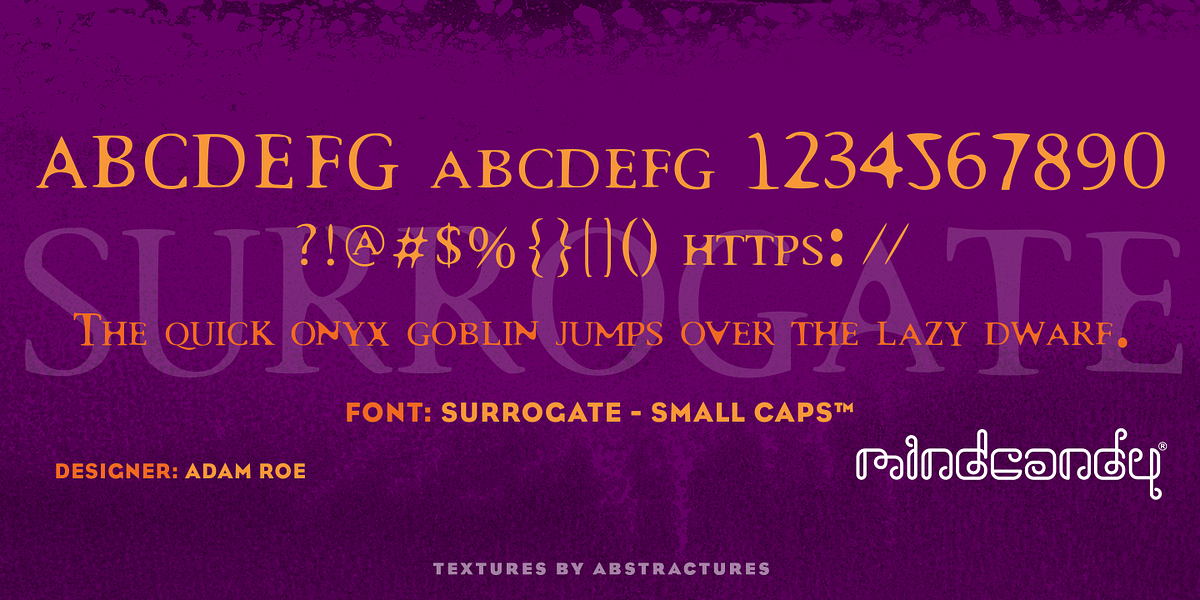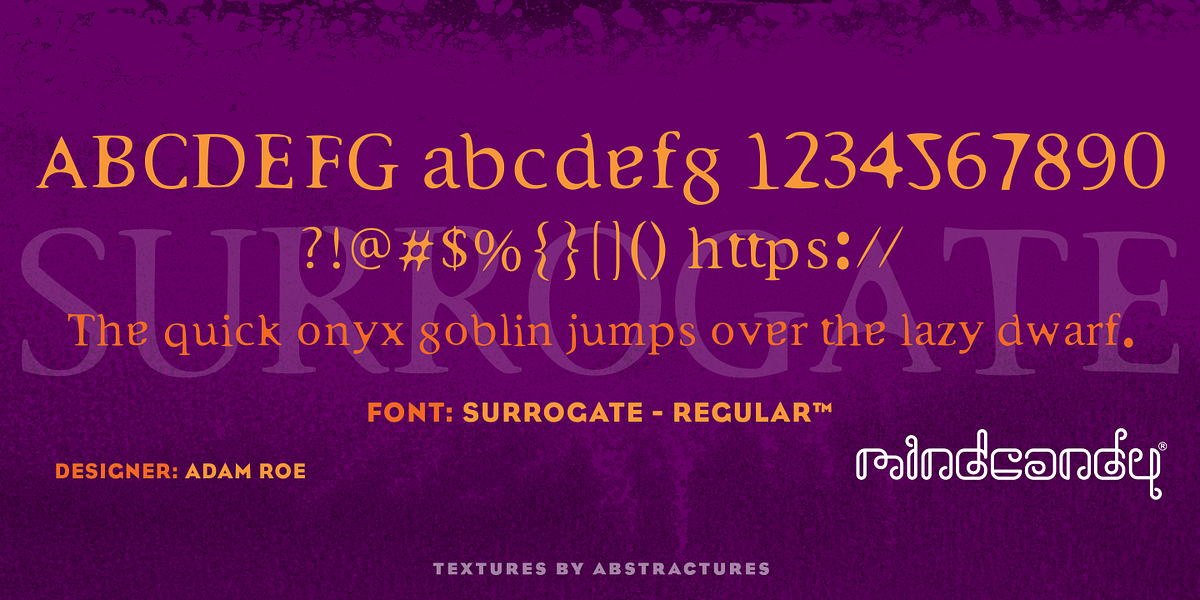
Surrogate™
This typewriter font is a novelty typeface designed by Adam Roe. It features small caps and evokes a vintage feel, making it suitable for branding and display text.